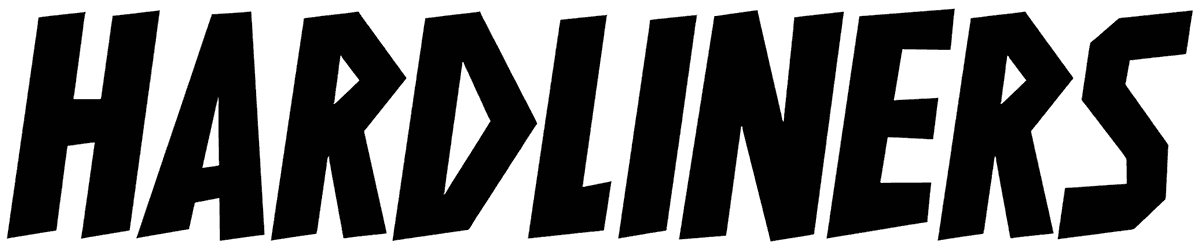
Hardliners Font
If you are looking for action and excitement in your typography, you might wanna try a fancy font. Hardliners is a brilliant example that gives you the perfect vibe with bold letters and angled lines.